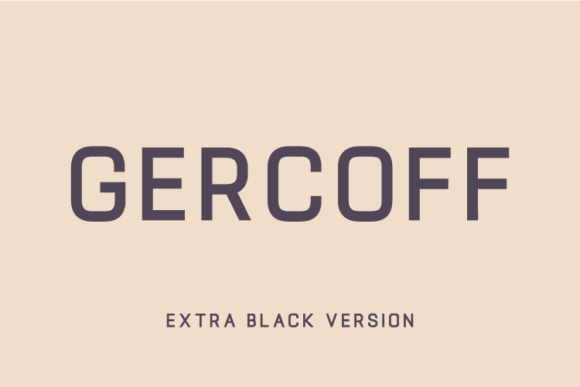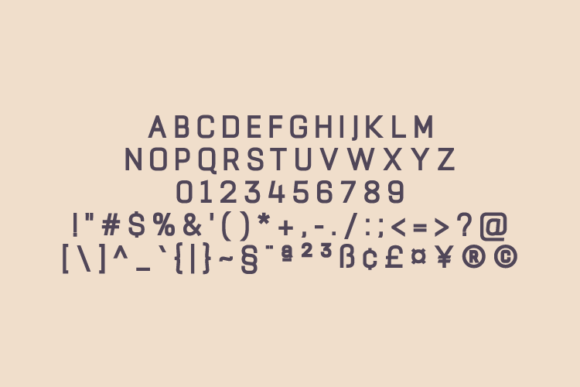
The Perfect Vintage Touch: Unlocking the Power of Gercoff Extra Black Font
As a designer, have you ever found yourself stuck in a creative rut, searching for that one font that perfectly captures the essence of your vintage-inspired project? You know, the kind of font that transports you back to a bygone era, with its smooth edges and nostalgic charm. That’s exactly what I experienced when I stumbled upon the Gercoff Extra Black Font.
This clean and simple sans serif font is a game-changer for designers looking to add a vintage touch to their projects. With its sleek lines and minimalistic design, Gercoff Extra Black Font is perfect for vintage logo designs, headers, and small amounts of text. Its versatility makes it a valuable addition to any designer’s toolkit, and its unique character is sure to elevate your designs to the next level.
Key Features of Gercoff Extra Black Font
- Font Family: Gercoff Extra Black
- Font Size: Supports font sizes from 6pt to 120pt, with optimal readability at 12pt to 48pt
- Resolution: Designed for high-resolution displays, with clear legibility at resolutions up to 300 DPI
- Unique Characteristic: Distinctive, bold, and modern design with a unique blend of geometric and organic elements, making it perfect for headings and titles
- Language Support: Supports Latin, Cyrillic, and Greek alphabets, as well as various punctuation and special characters
Gercoff Extra Black Font Review
Overall, I’m quite impressed with the Gercoff Extra Black Font. Here are some aspects that I think work well: ✨
- Unique and bold design – It really stands out and grabs attention.
- High level of customization – It can be easily adjusted to fit various design needs.
- Wide compatibility – It works well across different platforms and devices.
- Limited font sizes – It’s mostly suitable for headings and titles, but might not be ideal for body text.
- Not suitable for lengthy text – The font can get overwhelming when used extensively, so it’s best used sparingly.
Overall, I think the Gercoff Extra Black Font is a great addition to any designer’s toolkit, but it’s essential to use it thoughtfully and judiciously. It’s perfect for creating eye-catching headings and titles, but it might not be the best choice for lengthy text or body content.
Gercoff Extra Black Font Application Guide
Getting the Most Out of Gercoff Extra Black
Use Gercoff Extra Black for headings and titles to add a touch of sophistication and elegance to your designs. This font pairs well with other bold and sans-serif fonts. Experiment with different font sizes and combinations to find the perfect balance for your design.
Gercoff Extra Black is ideal for use in logos, business cards, brochures, and other marketing materials. It’s also a great choice for use in digital products, such as apps and websites, where a bold and modern font is desired.
Alternatives to Gercoff Extra Black Font for Designers
Font 1: Akkurat Extra Bold
Akkurat Extra Bold is a sans-serif font that offers a similar feel to Gercoff Extra Black Font but with a more modern and clean look. It’s ideal for use in digital interfaces, mobile apps, and websites where a bold and clear font is required.
Comparison: Akkurat Extra Bold has a more rounded and smooth feel compared to the sharp edges of Gercoff Extra Black Font. It’s also more versatile and can be used in a wider range of applications.
Font 2: Rockwell Extra Bold
Rockwell Extra Bold is a serif font that provides a classic and professional look. It’s suitable for use in print materials, such as brochures, business cards, and posters, where a bold and elegant font is required.
Comparison: Rockwell Extra Bold has a more traditional and formal feel compared to Gercoff Extra Black Font. It’s also more suitable for use in print materials where a serif font is preferred.
Font 3: Source Sans Pro Extra Bold
Source Sans Pro Extra Bold is a sans-serif font that offers a clean and modern look. It’s ideal for use in digital interfaces, mobile apps, and websites where a bold and clear font is required.
Comparison: Source Sans Pro Extra Bold has a more minimalist and sleek feel compared to Gercoff Extra Black Font. It’s also more versatile and can be used in a wider range of applications.